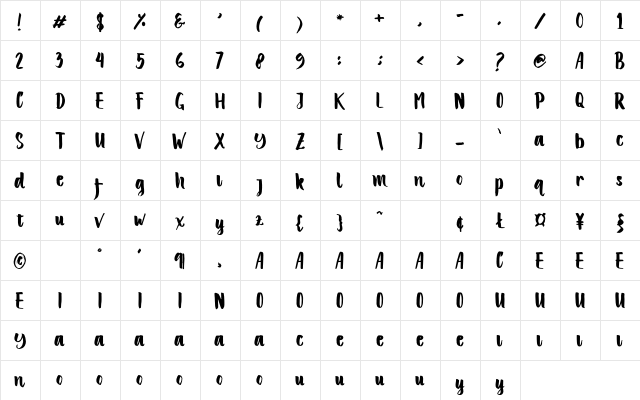
Chocolatos Regular
Design Context for Chocolatos Typeface
Chocolatos is a composed and adaptable typeface that performs quietly and consistently across a wide range of design contexts.